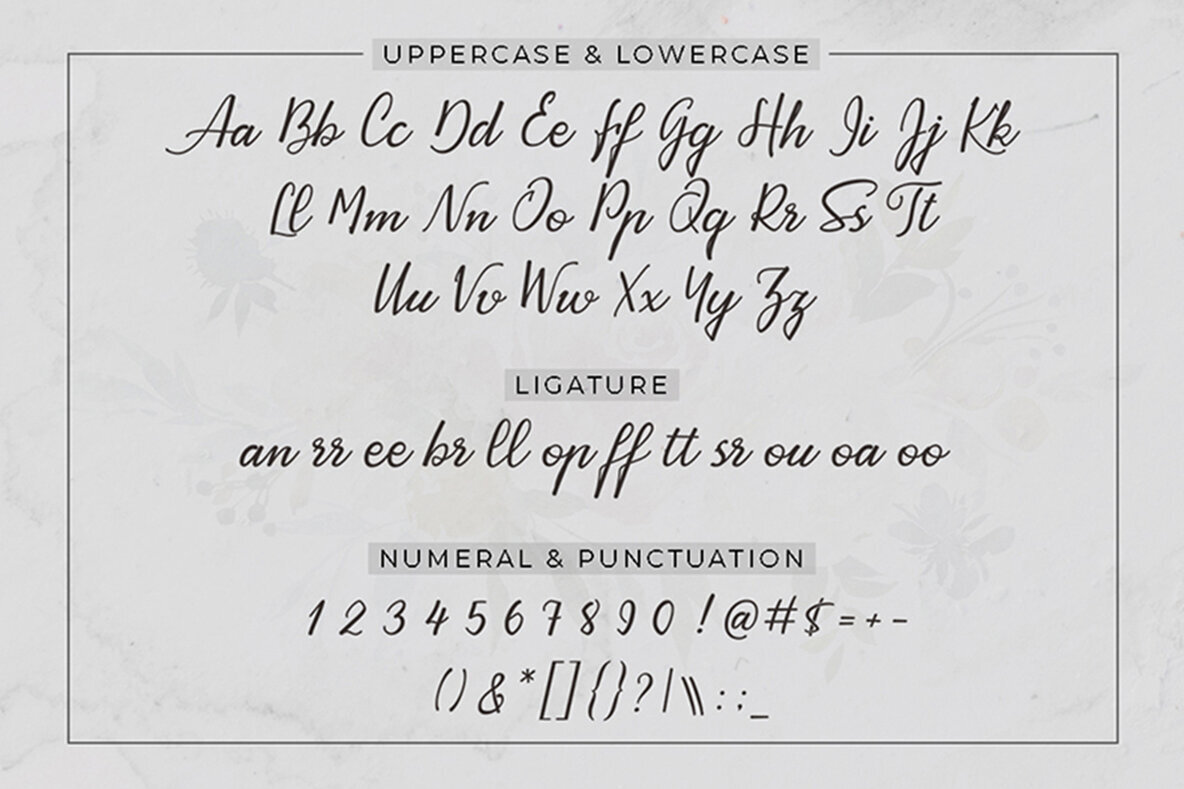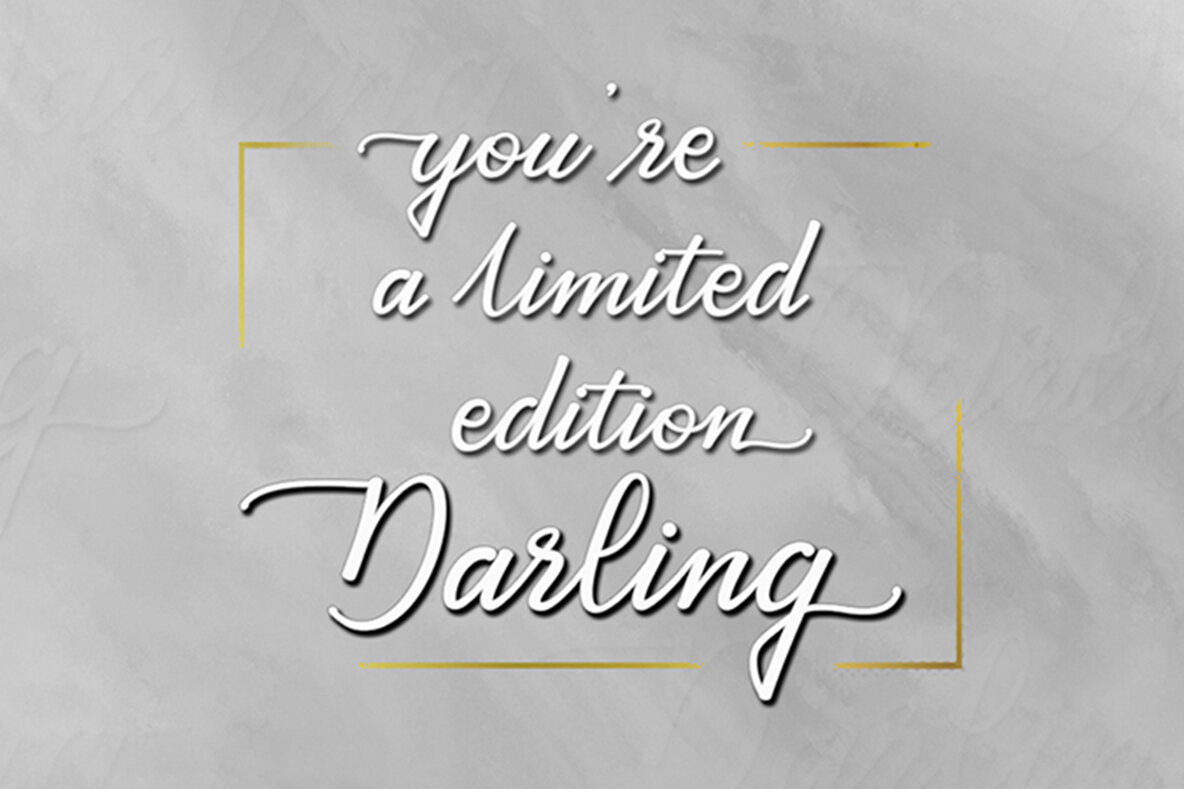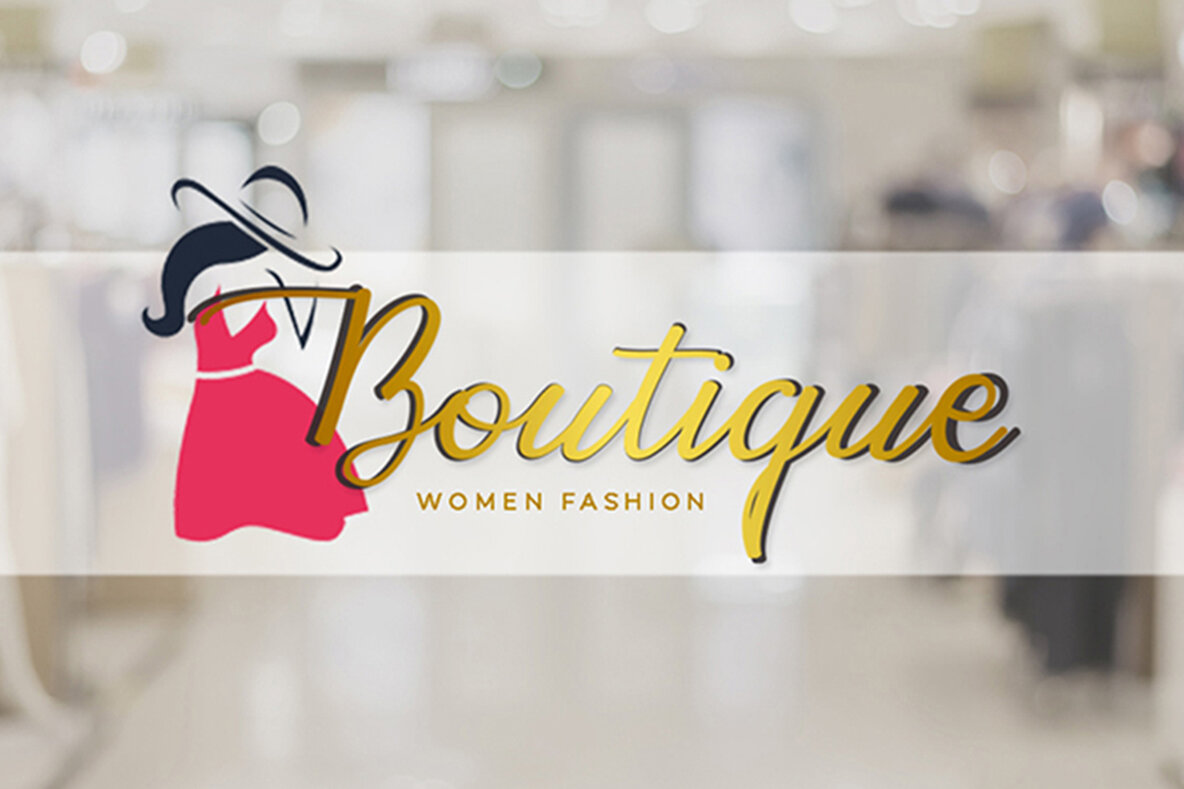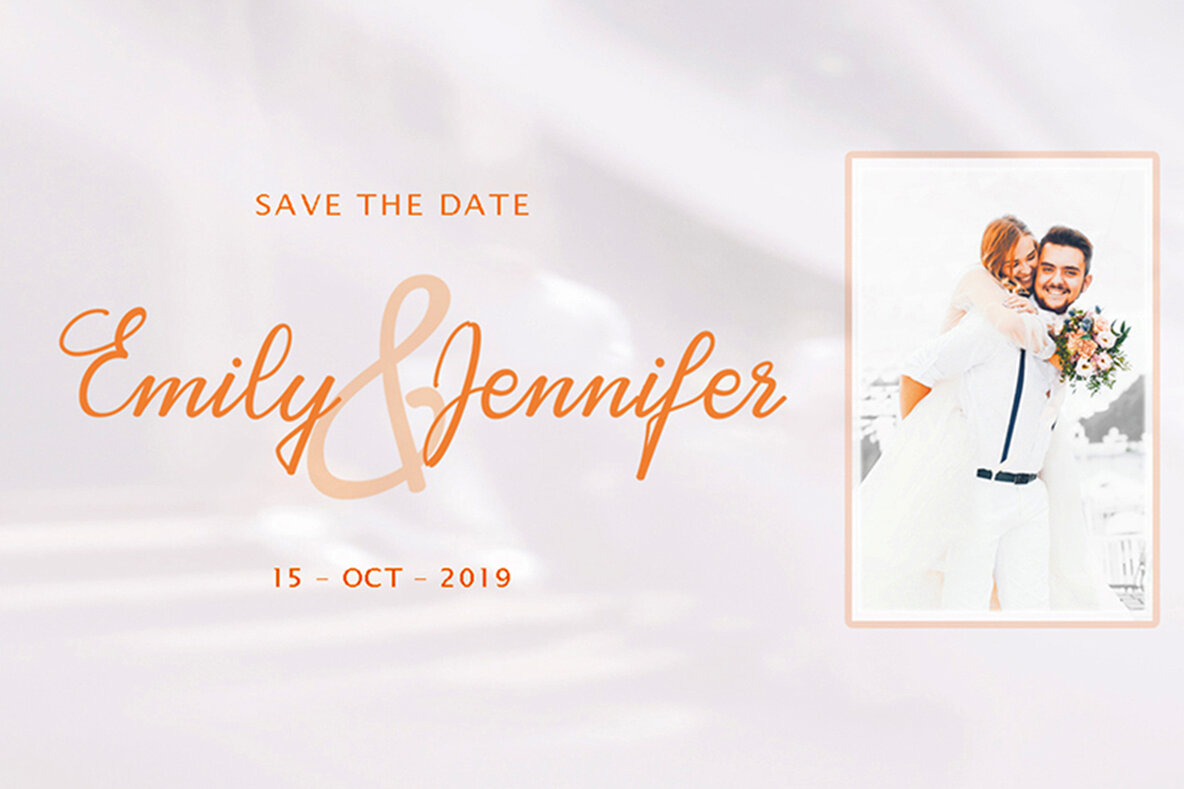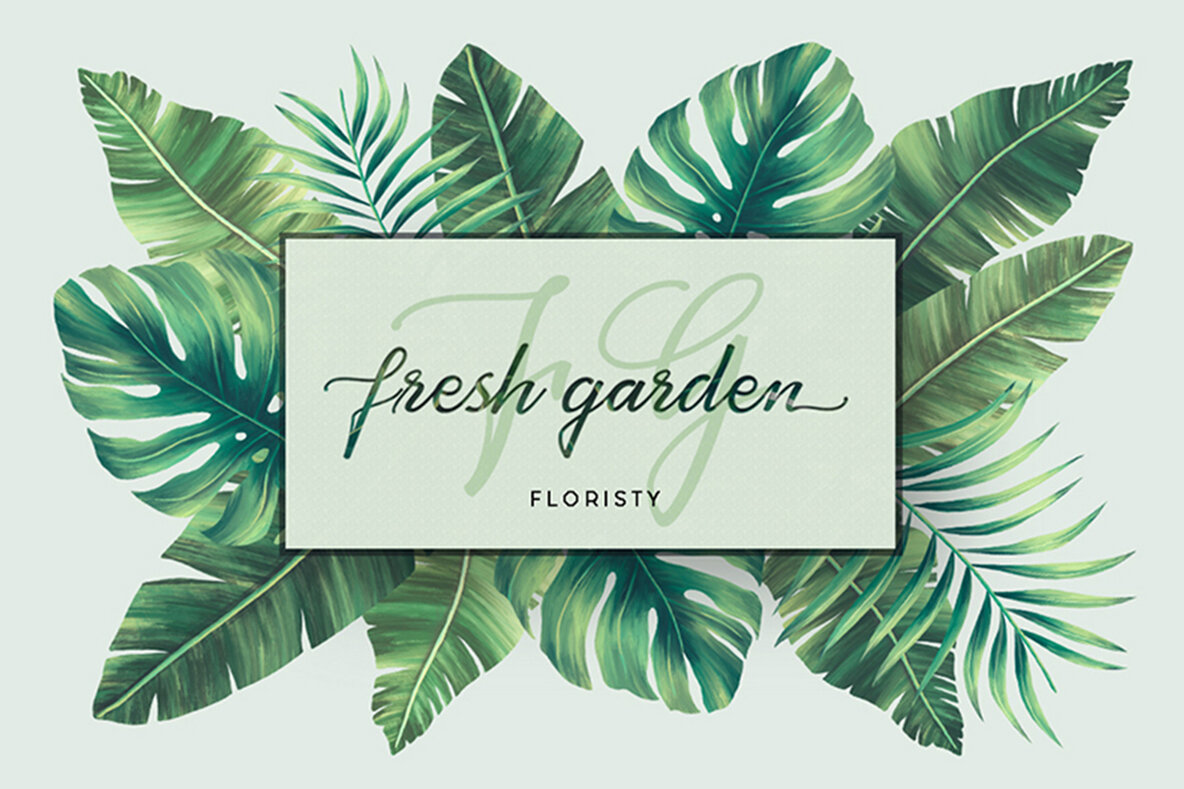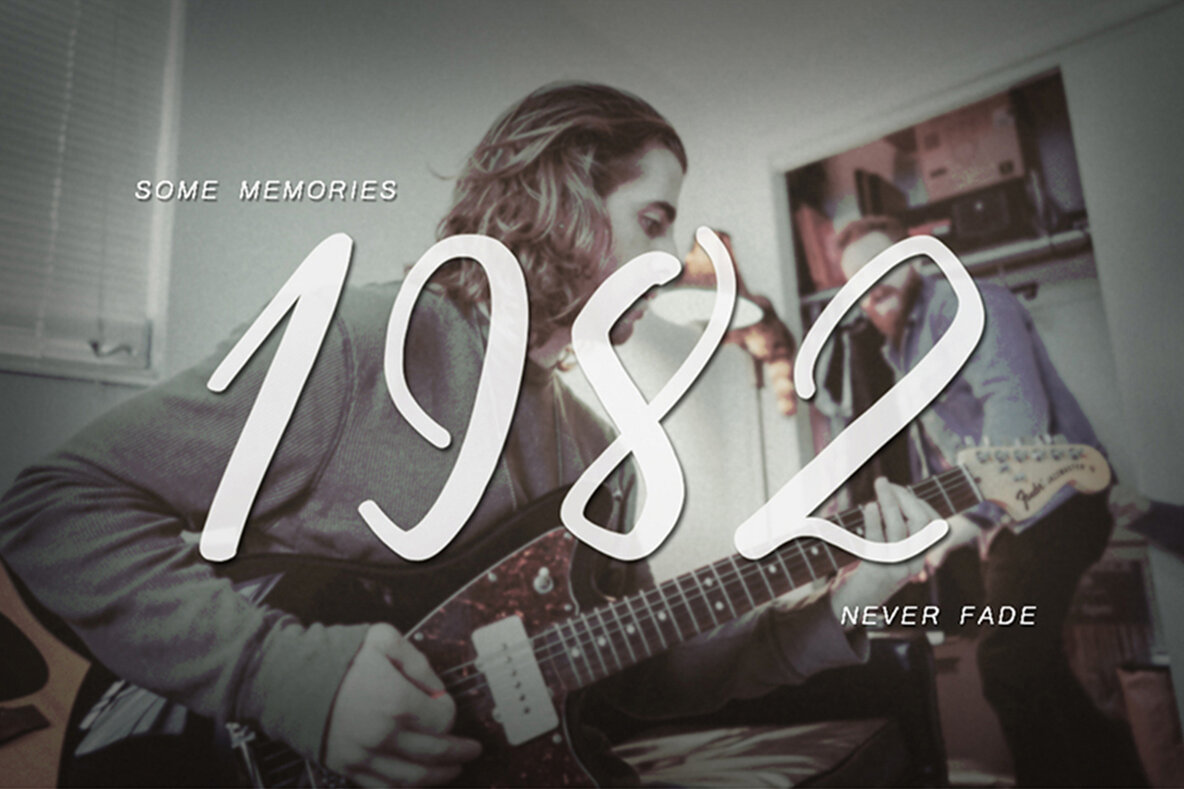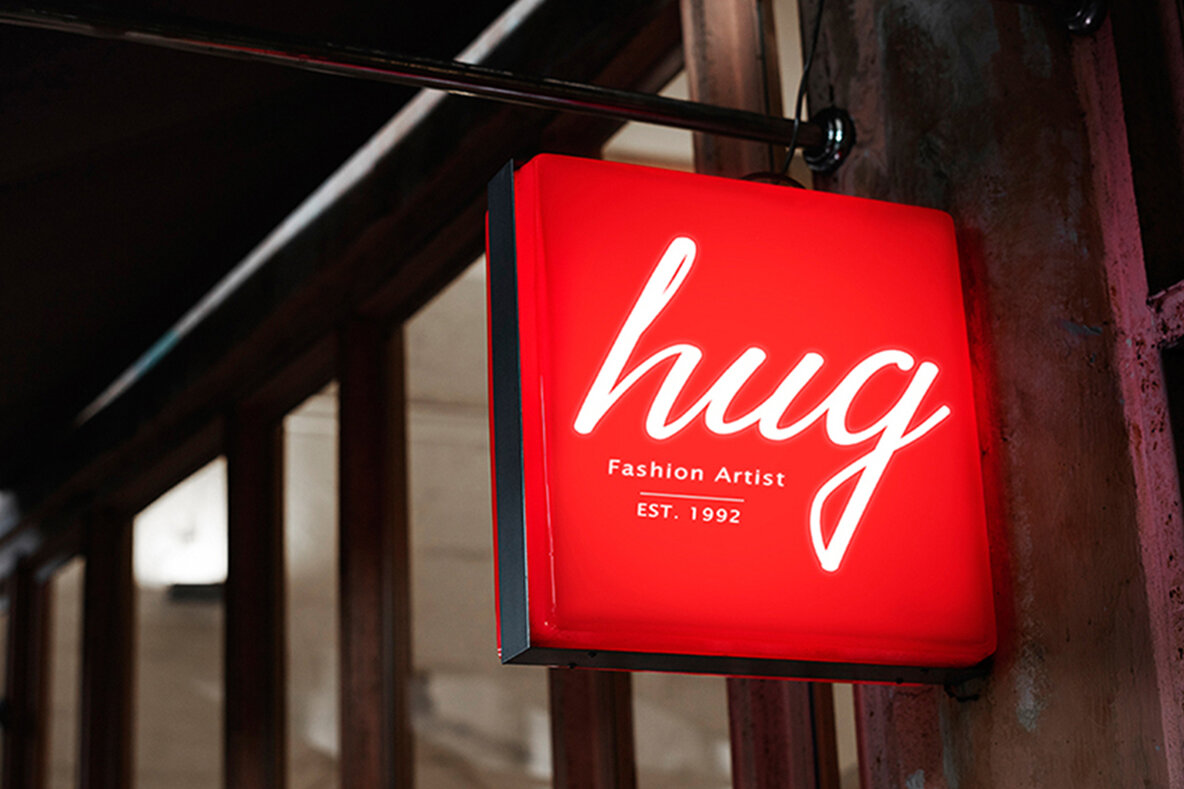
Ayrton Pight Font
Ayrton pight Regular
The Ayrton Pight font captures the essence of modern hand-rubbed calligraphy with its exquisitely crafted characters. Designed with meticulous attention to detail, this calligraphic script infuses elegance into any project. While embodying femininity and sensuality, Ayrton Pight remains smooth, clean, and easy to read. It is an ideal choice for those seeking a combination of glamour and simplicity in their typography.Ayrton Pight: Elegant Calligraphy with Ease